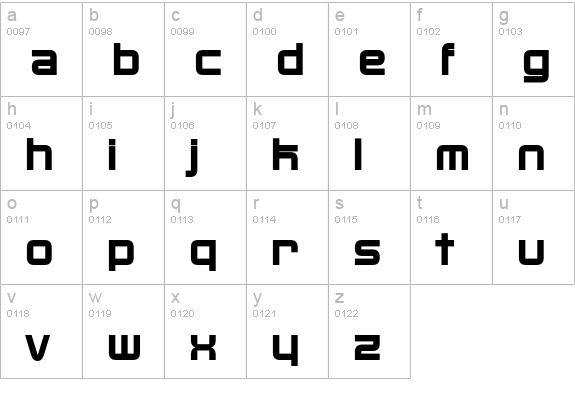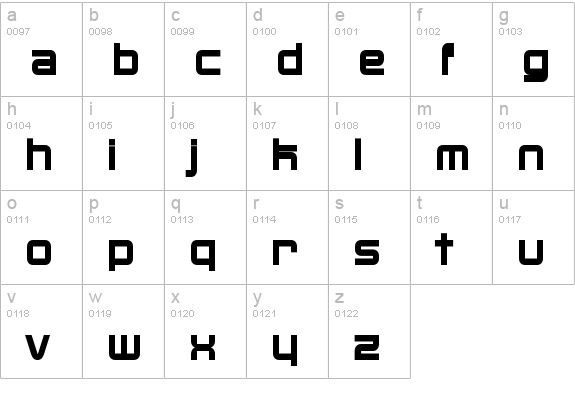
Gondorf Font Details
Gondorf font is a modern and stylish typeface that exudes elegance and sophistication. With its sharp lines and unique letterforms, Gondorf is perfect for adding a touch of class to any design project. This versatile font is ideal for branding, logos, headlines, and more. The best part? Gondorf font is available for free download at FontsMarket.com. Now you can elevate your designs without breaking the bank. Don't miss out on this opportunity to enhance your creative projects with the beautiful Gondorf font. Download it now and let your creativity shine!